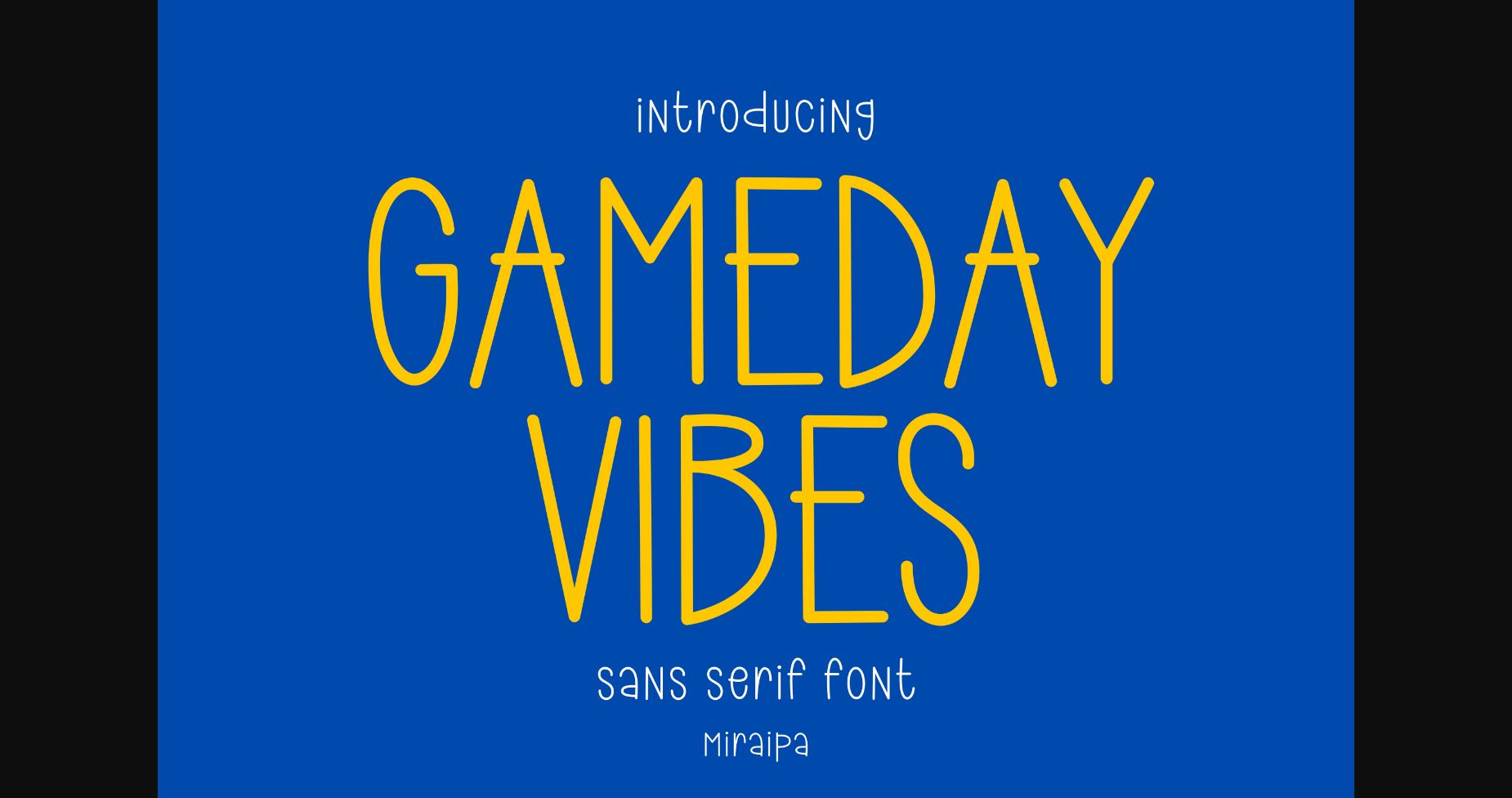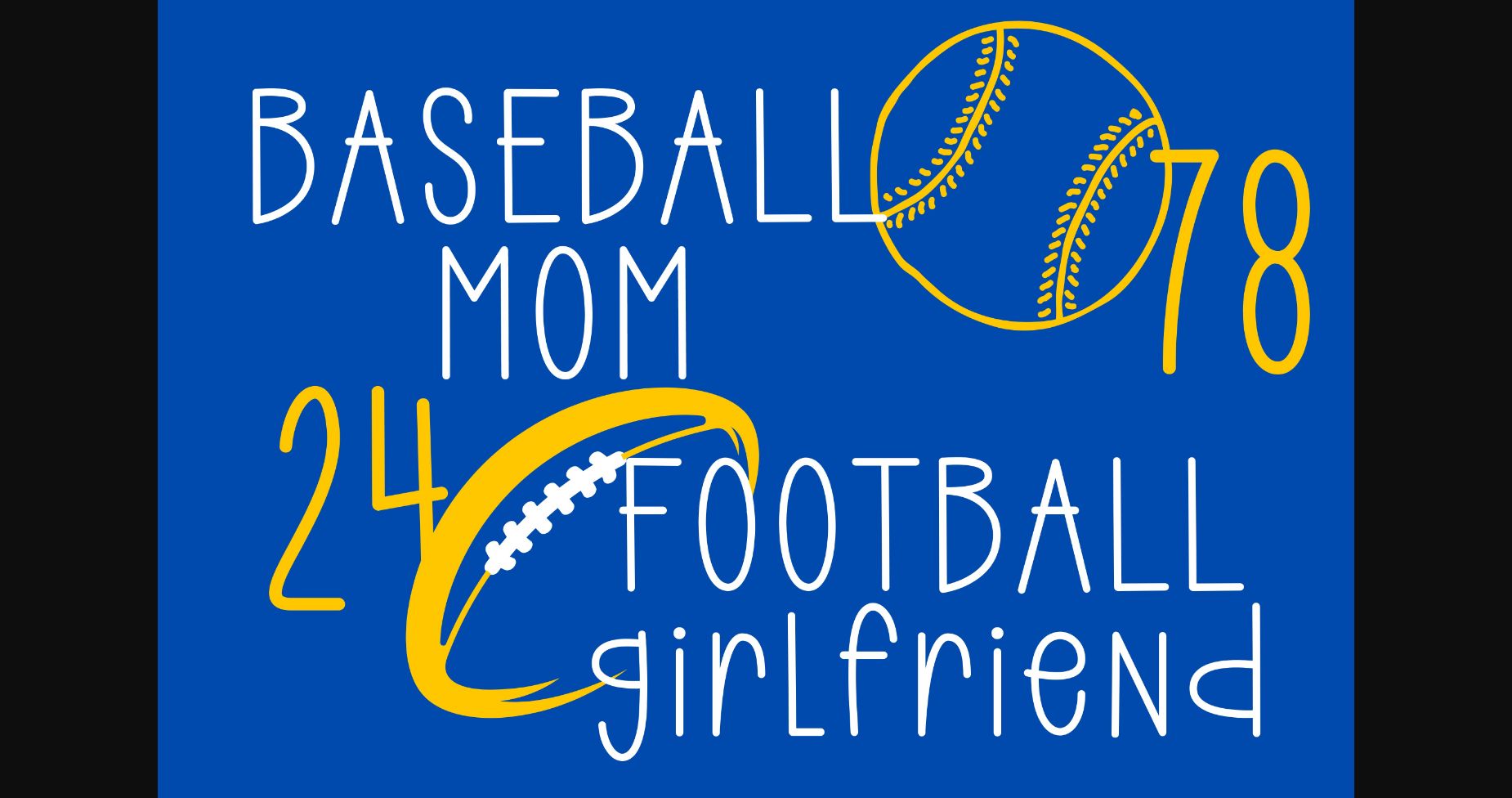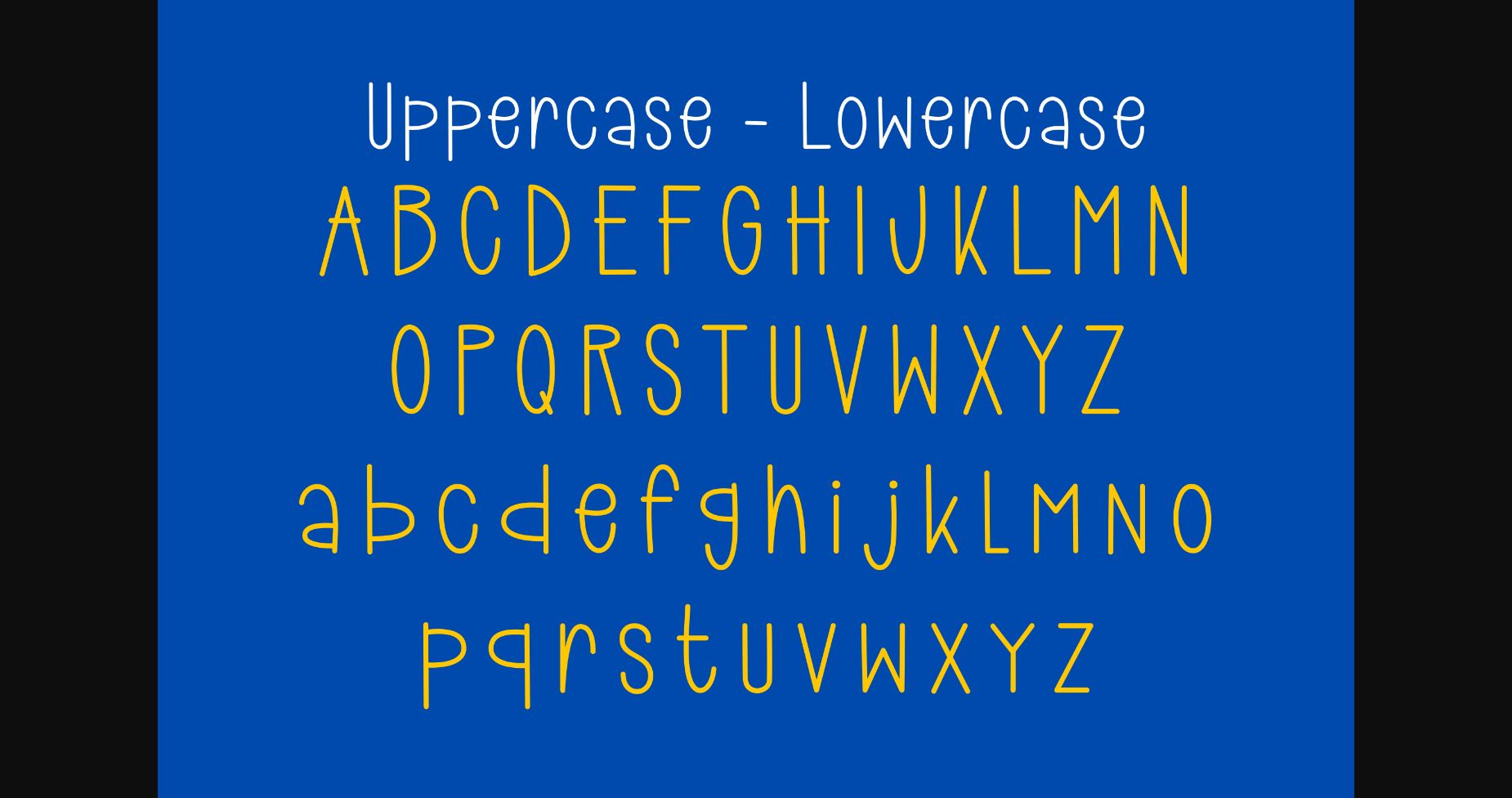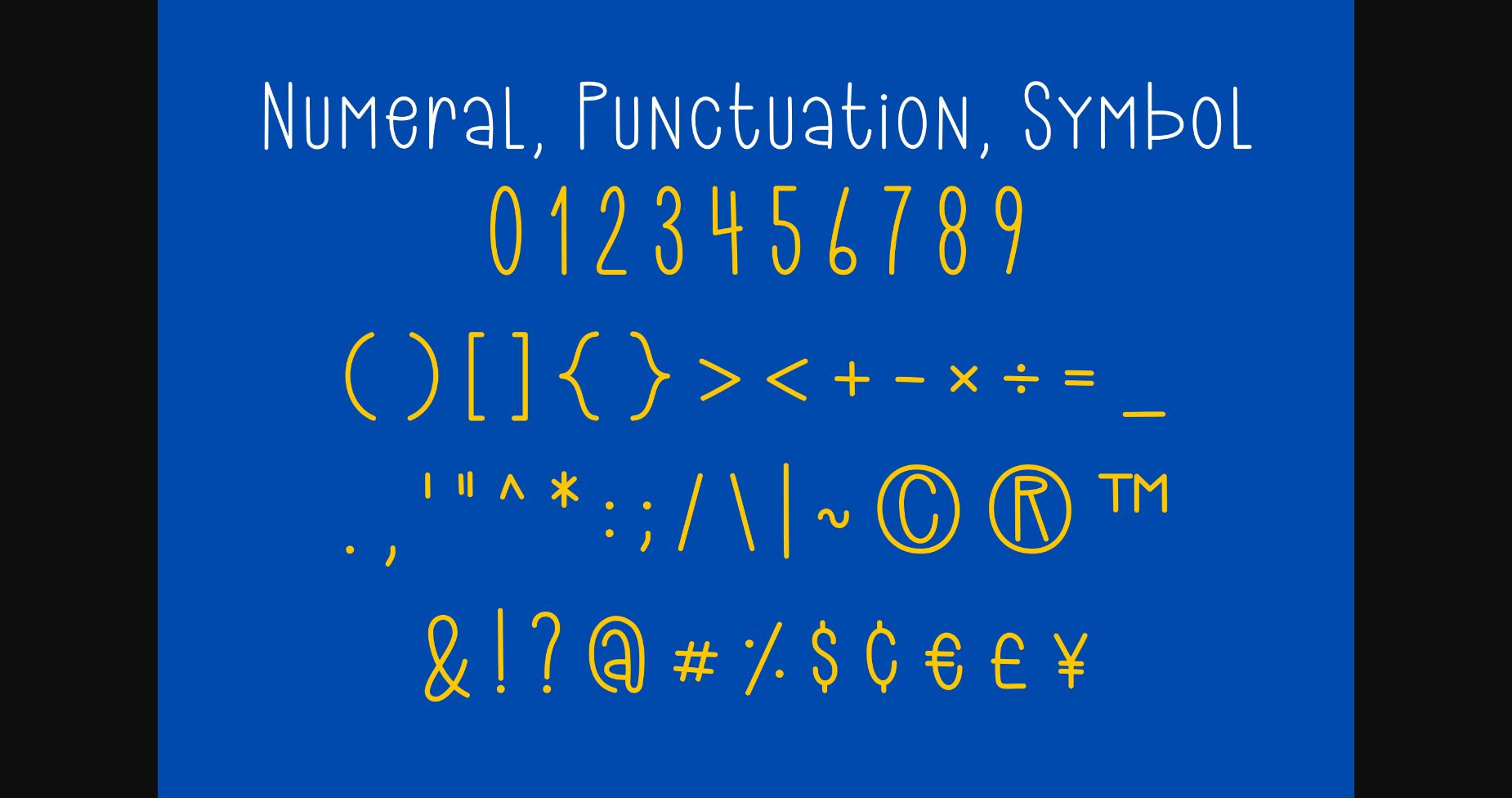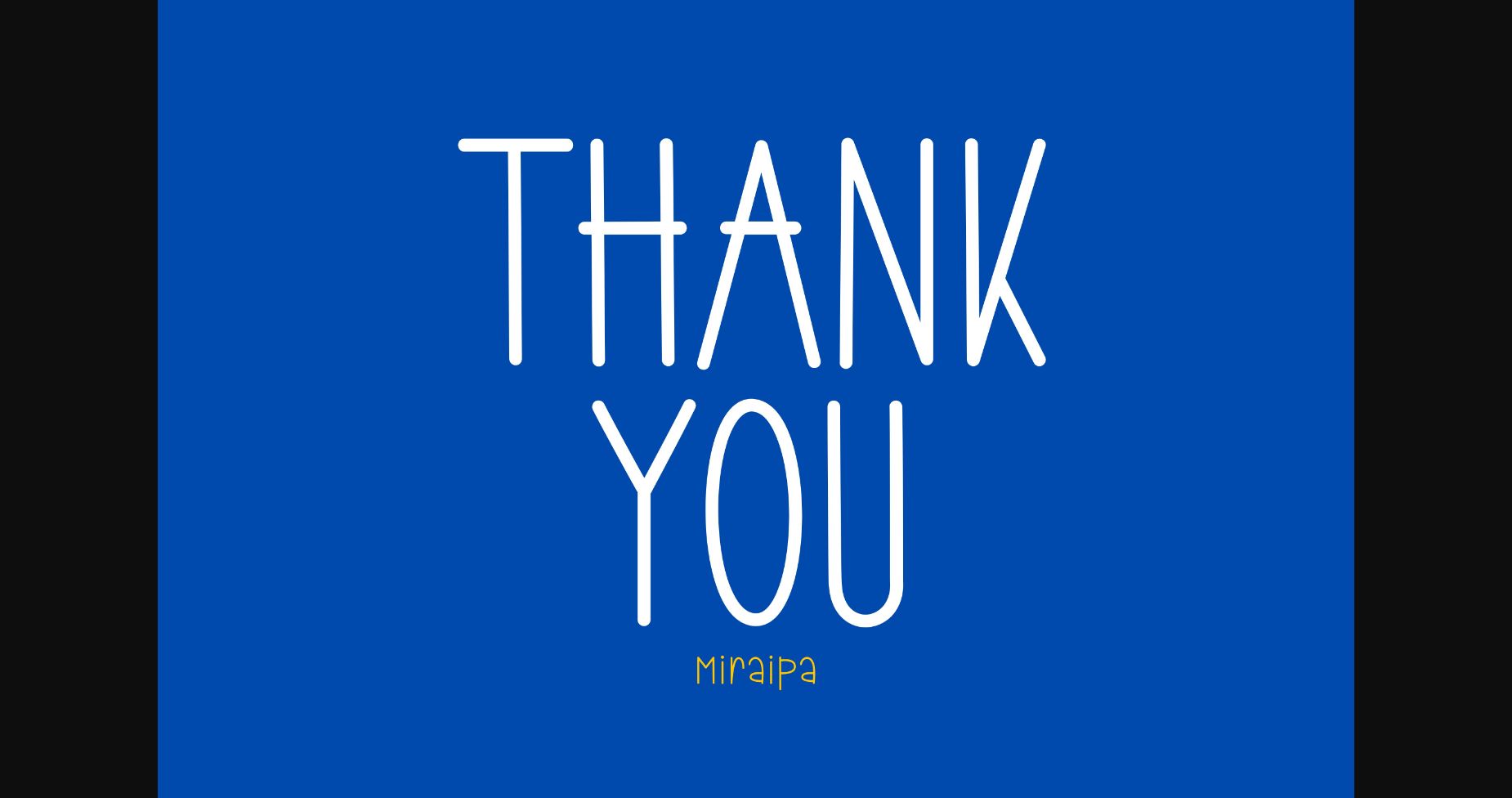
HomeSans Serif FontsGameday Vibes Font Sans Serif Fonts Gameday Vibes Font FacebookXPinterestWhatsApp 1 of 7 ... Gameday Vibes Font Poster 2... Gameday Vibes Font Poster 3... Gameday Vibes Font Poster 4... Gameday Vibes Font Poster 5... Gameday Vibes Font Poster 6... Gameday Vibes Font Poster 7... About Gameday Vibes Font Gameday Vibes is a unique and modern sans-serif font with asymmetrical lines and an unexpected twist. The font is perfect for creating modern and innovative designs, such as websites, posters, and packaging. DOWNLOAD NOW People also explored Apollo Font Romitha Font Thick and Thin Font Winter Sweeter Font Grabes Font Funny Rainbow Font Hello Autumn Font Bellchime Christmas Monogram Font Vintage Dingbat Font 334 0 TagsGameday Vibes Font Previous articleYumase FontNext articleKebroon Font LEAVE A REPLY Cancel reply Comment: Please enter your comment! Name:* Please enter your name here Email:* You have entered an incorrect email address! Please enter your email address here Website: Save my name, email, and website in this browser for the next time I comment. Personal Use Free Amelline Personal Use Free Read more about this font Anders Personal Use Free Read more about this font Shelly Personal Use Free Read more about this font Sunflower Personal Use Free Read more about this font BLOG How to Cut Any Font on Cricut: Convert a Font to SVG (Free) Turn any font into a clean SVG so it cuts crisp on Cricut - a quick 3-step workflow using a free font-to-SVG tool. Best Fonts for T-Shirt Design – Top 2025 Picks Best Fonts for YouTube Videos: Make Your Thumbnails Stand Out Exploring Font Trends